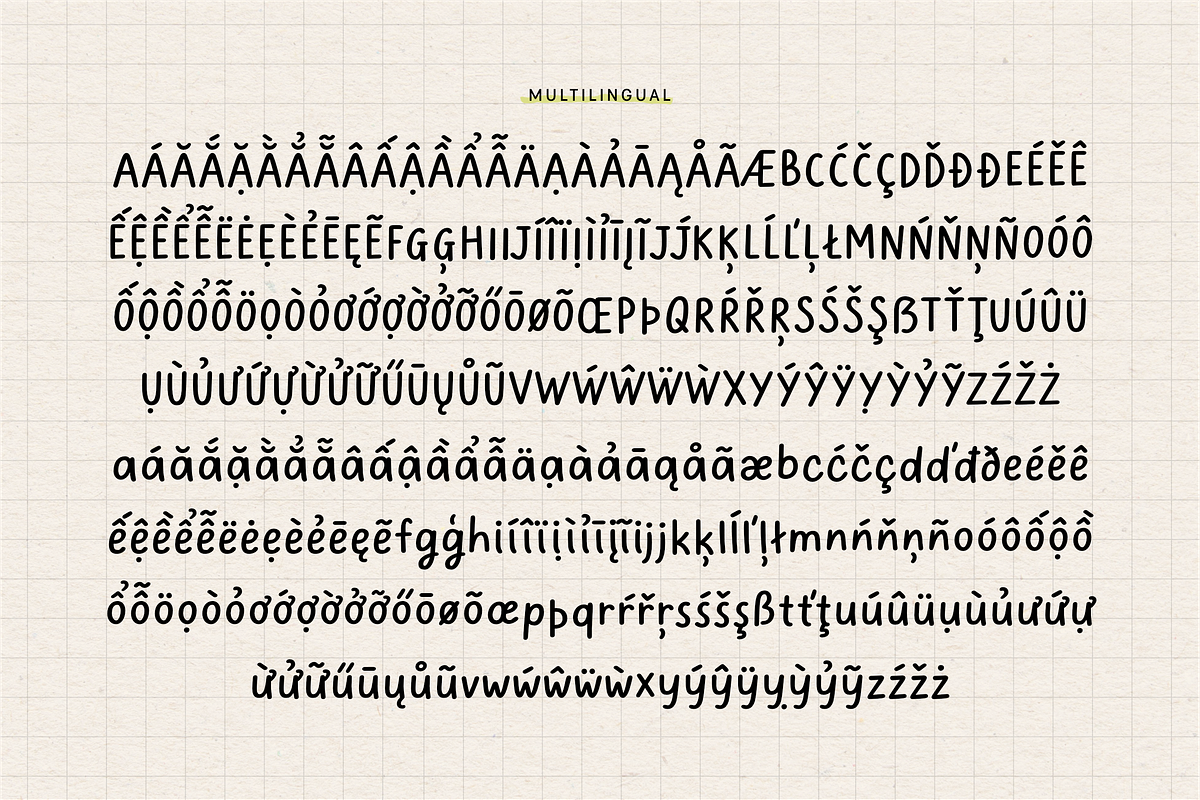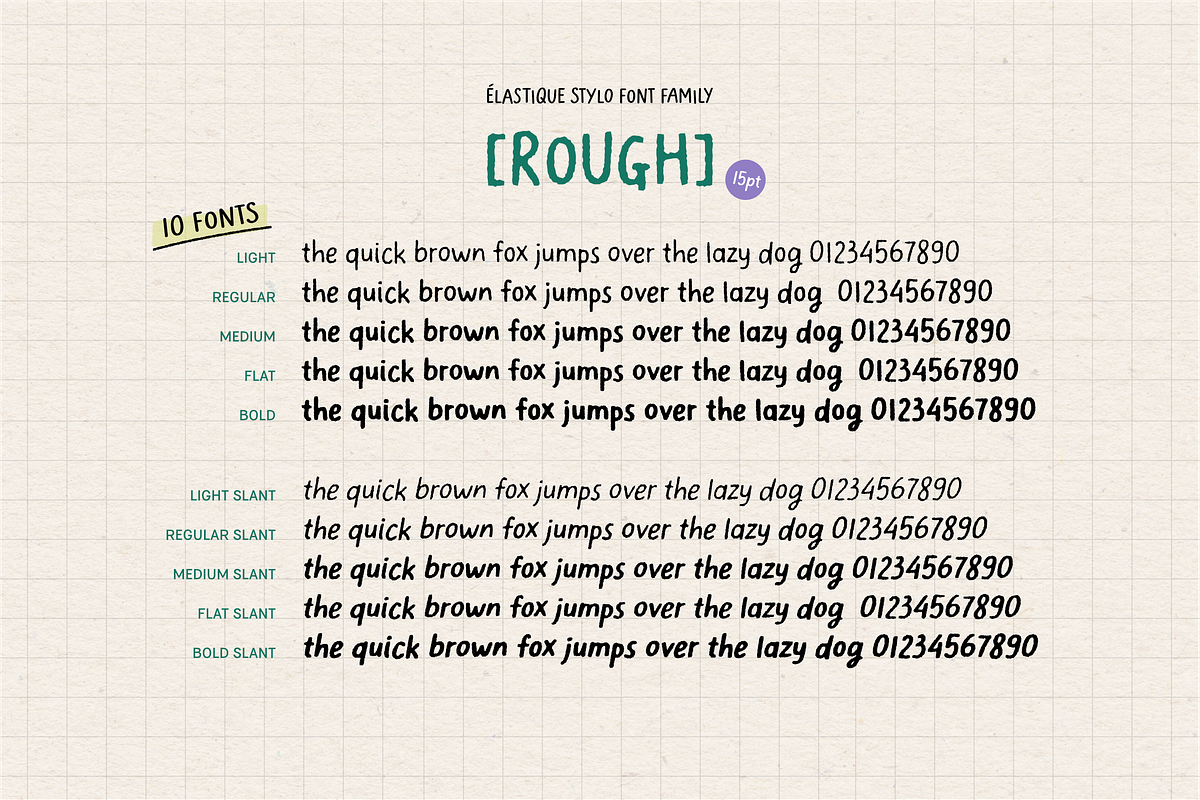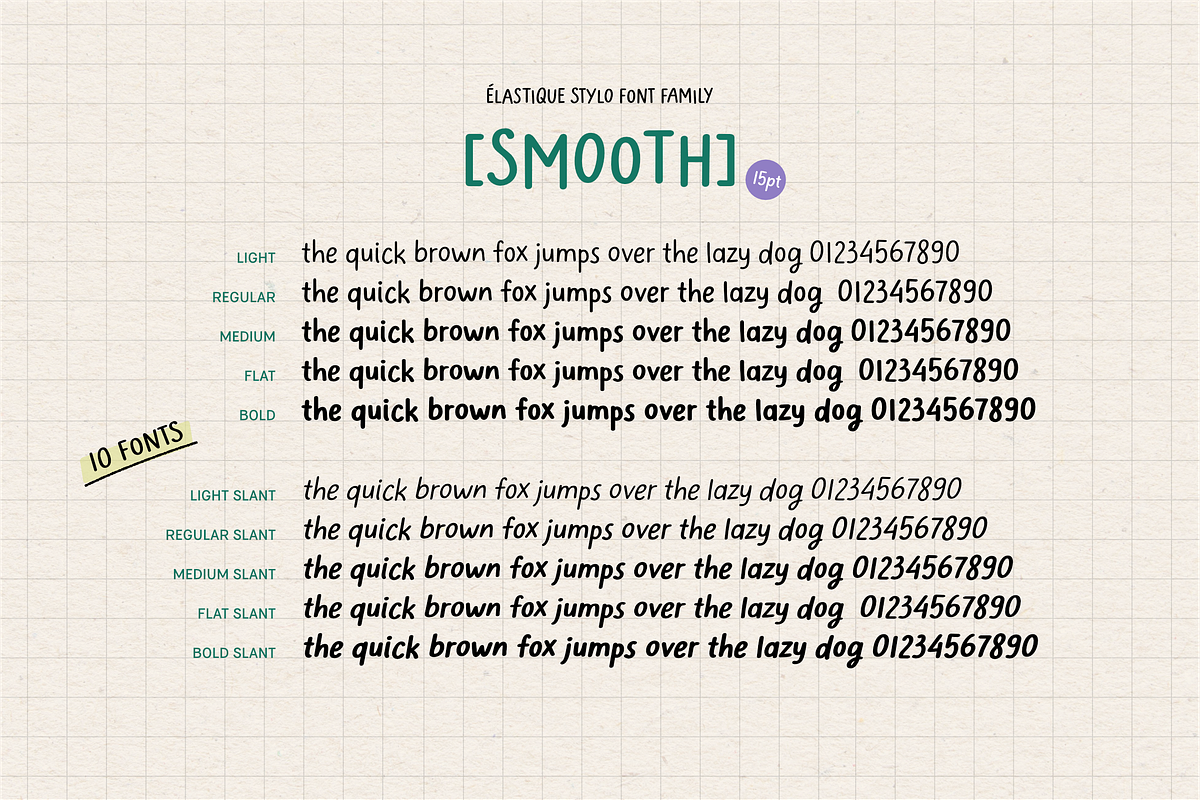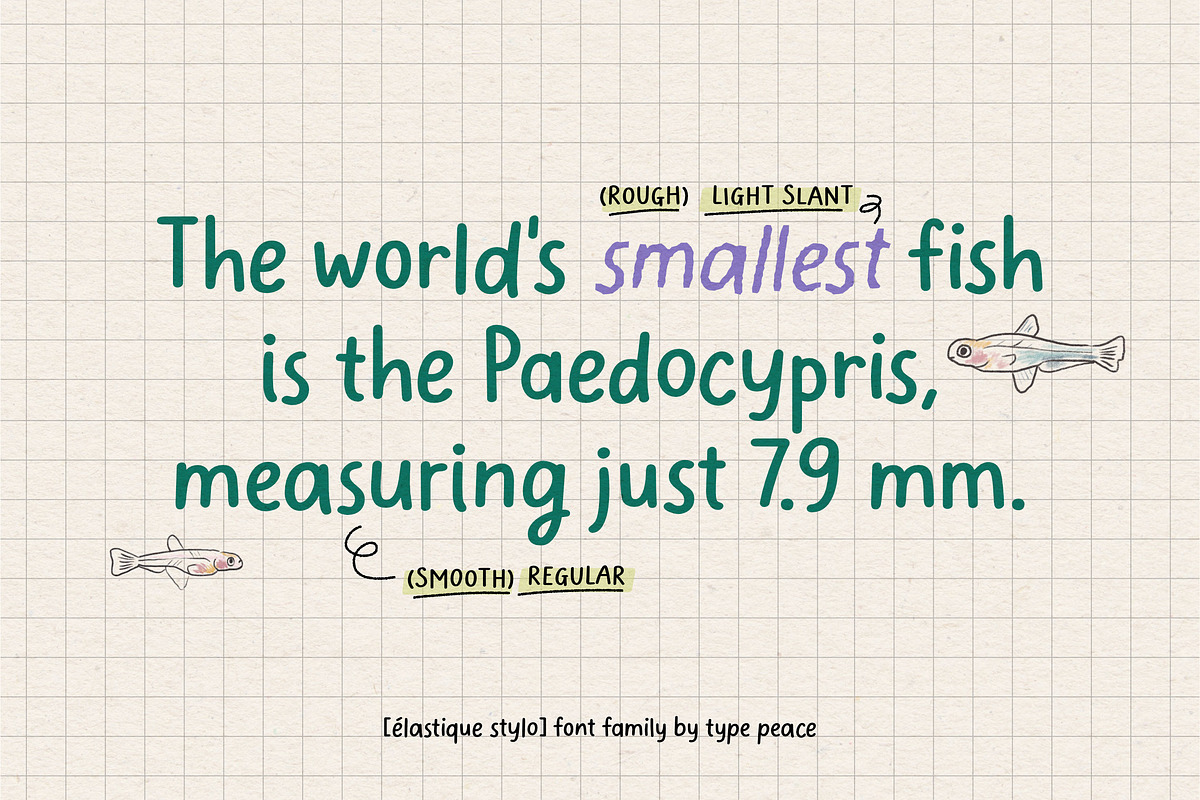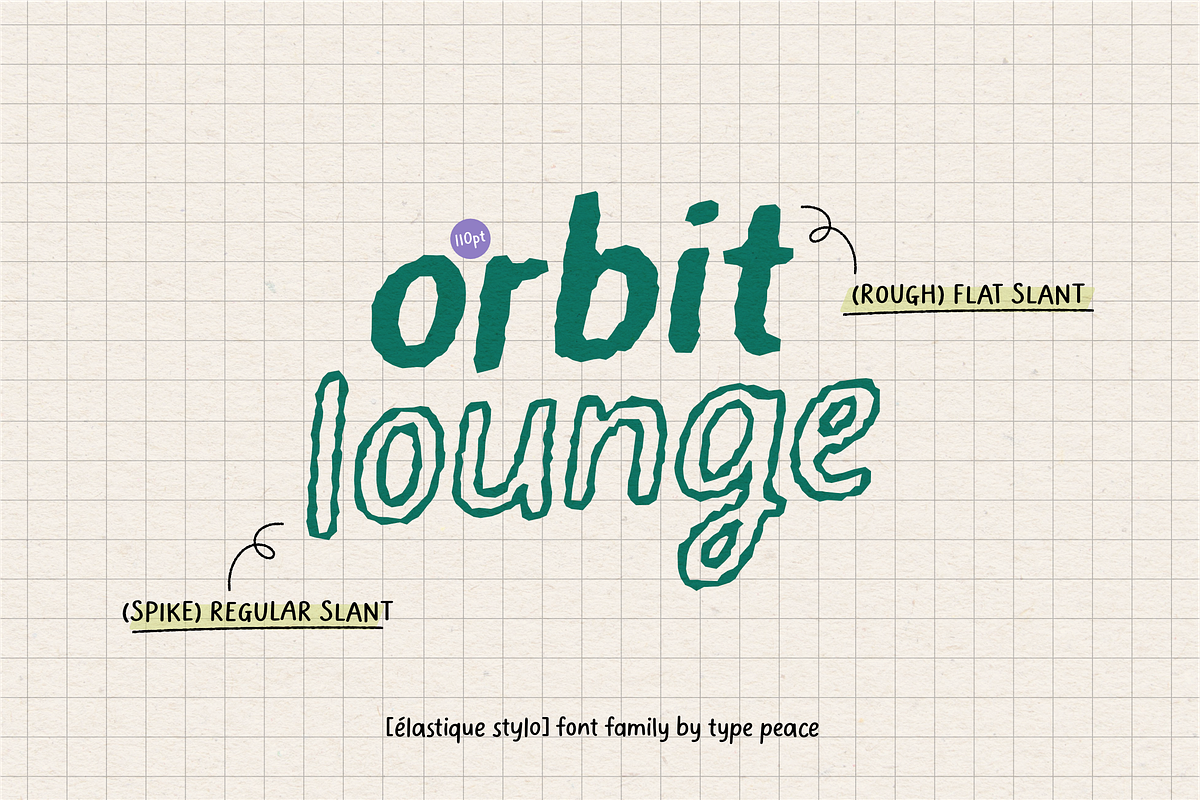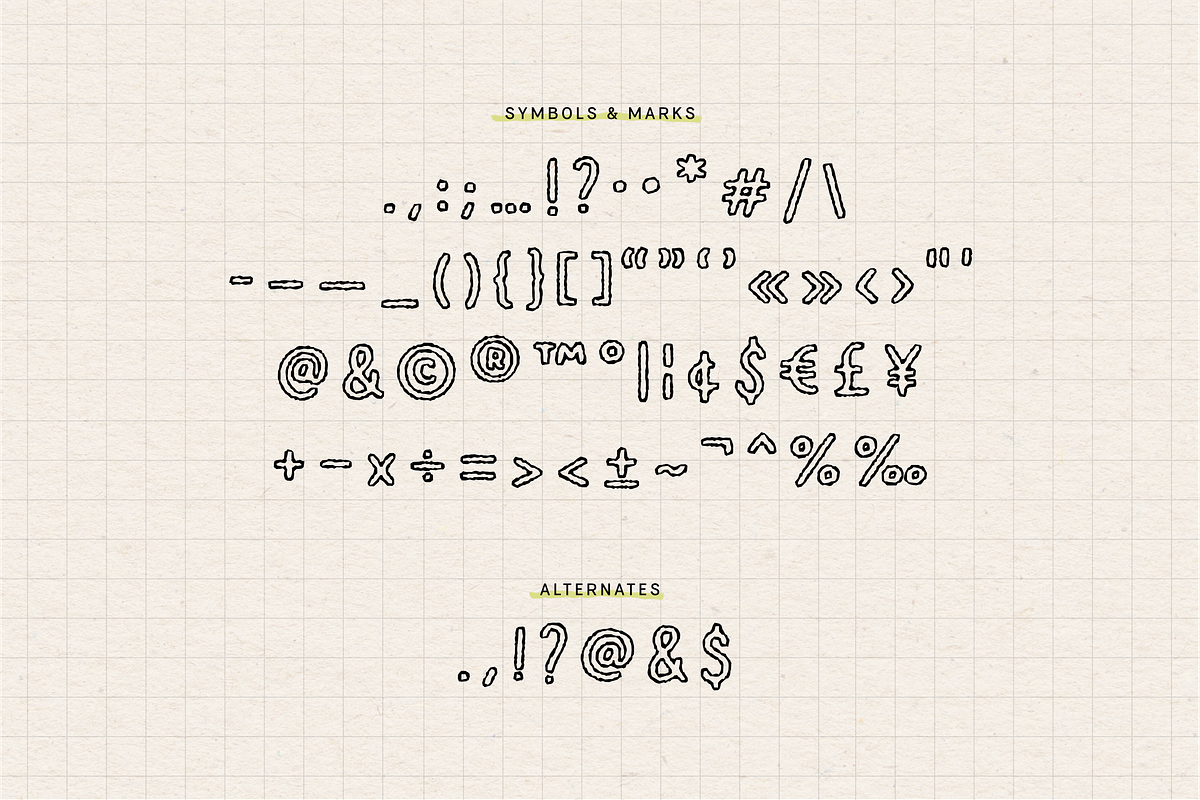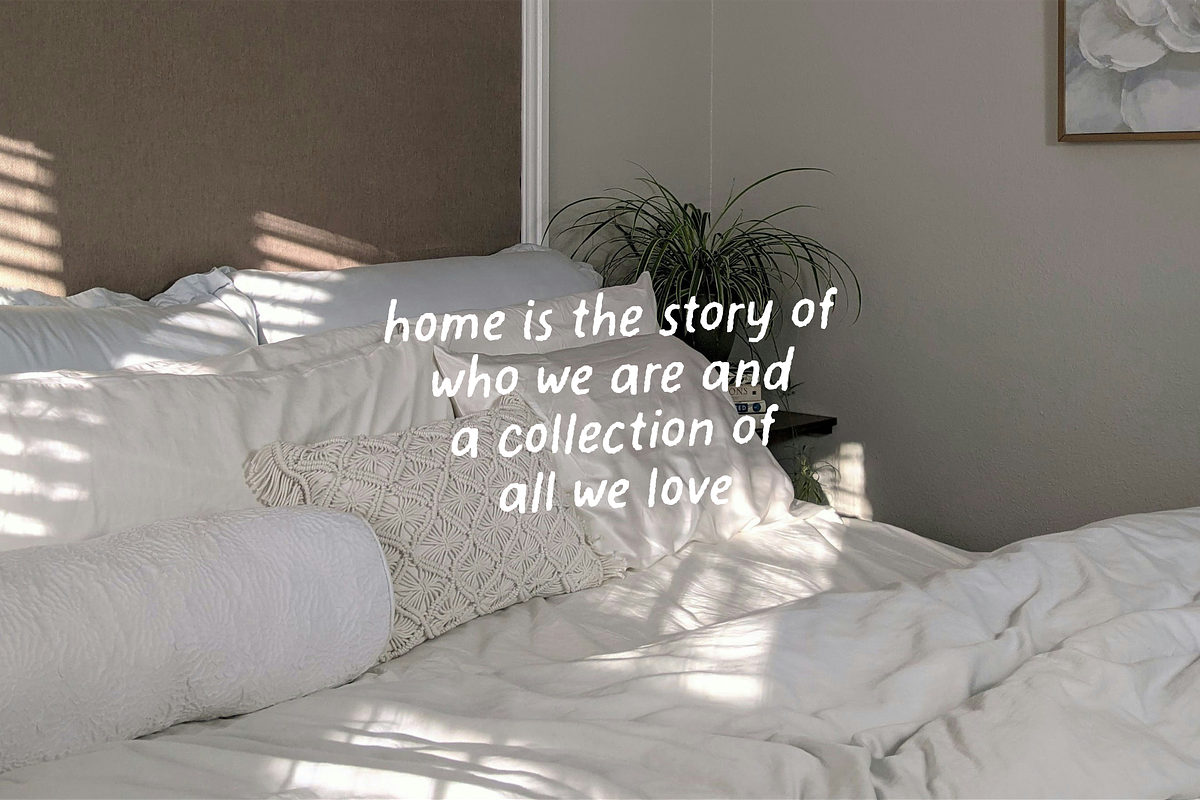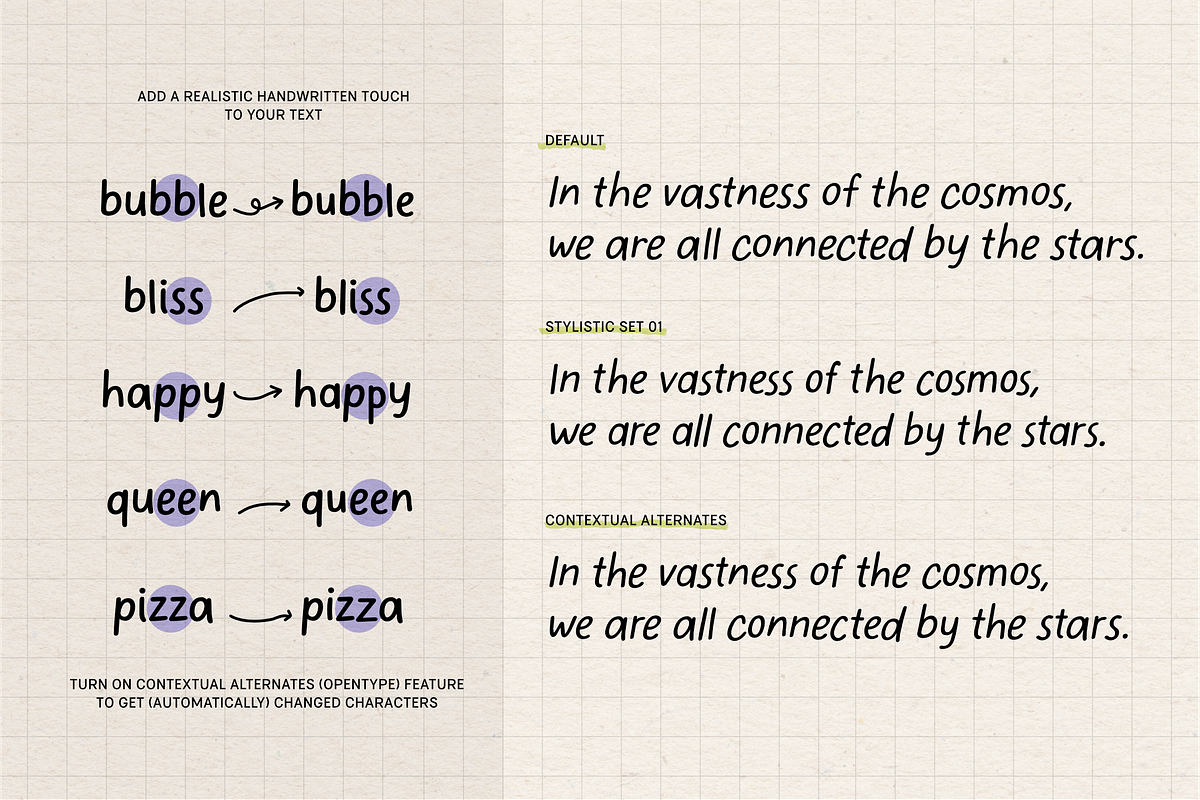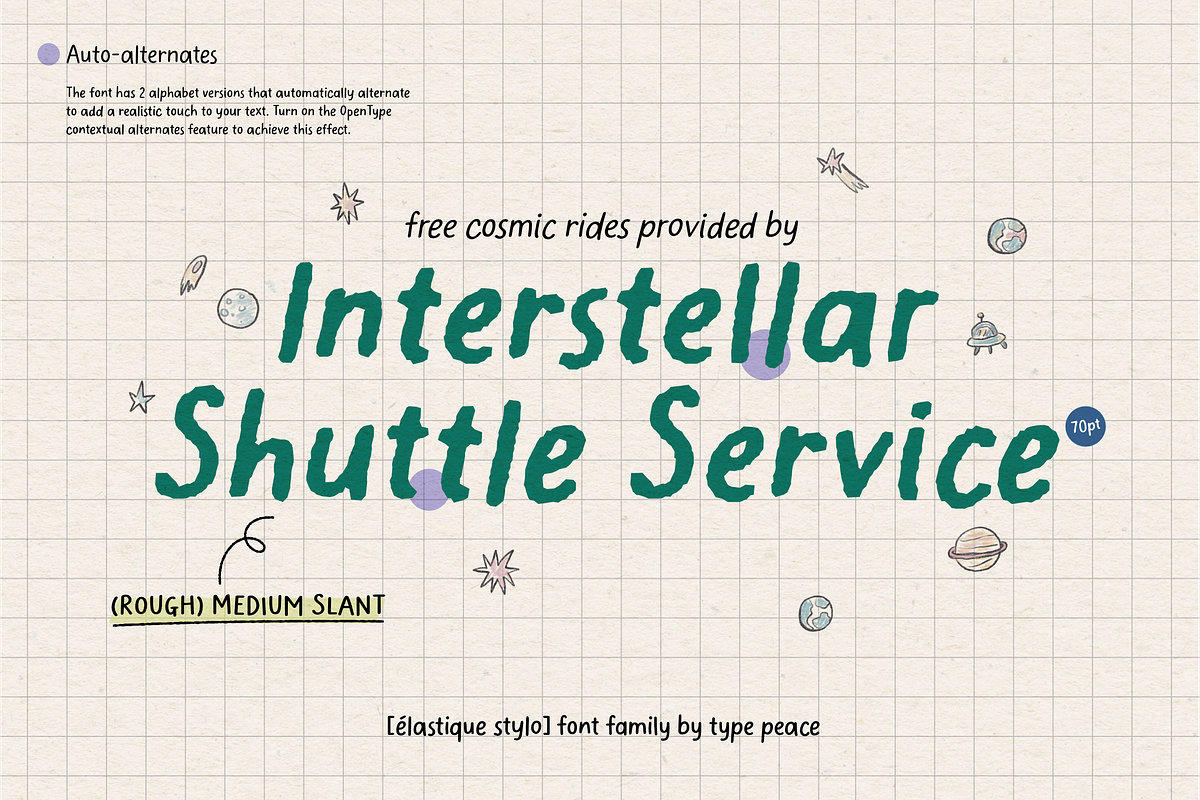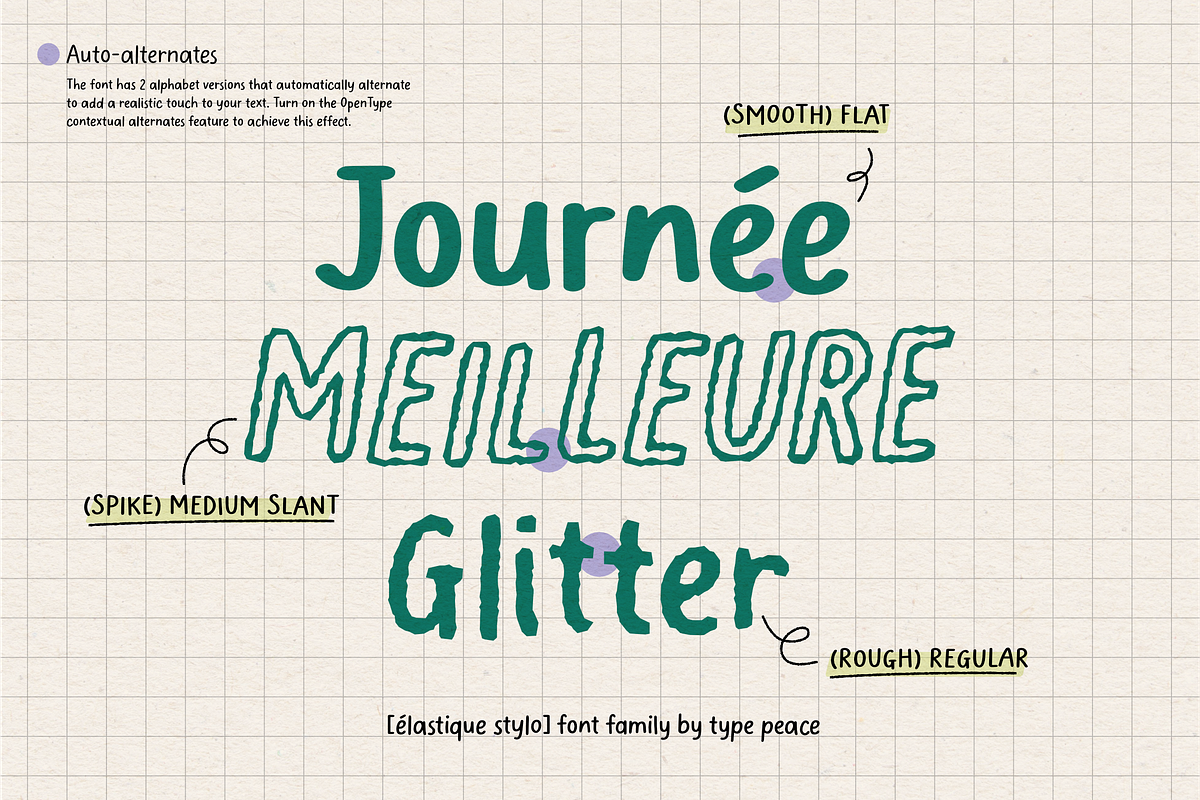
ELASTIQUE STYLO | Font Family
Elastique Stylo is a versatile 30-font handwritten typeface family designed to meet all your creative needs. Featuring three distinct styles—Smooth, Rough, and Spike—this comprehensive collection offers endless possibilities for crafting unique designs. Each style is packed with uppercase and lowercase alphabets, numbers, punctuation, and symbols, plus multilingual support. Perfect for branding, packaging, invitations, social media, and beyond, the Elastique Stylo Full Family gives you all the tools to create cohesive and eye-catching projects.
Enable the OpenType Contextual Alternates feature to alternate between different letter versions, giving your text an authentic and realistic handwritten feel.
3 Styles (Also Available Separately):
5 Weights - Upright & Slanted Fonts for Each Style
- Light & Light Slant
- Regular & Regular Slant
- Medium & Medium Slant
- Flat & Flat Slant
- Bold & Bold Slant
Font features:
- 2 versions for each letter and number
- Punctuations and symbols with some alternates
- Opentype contextual alternates feature
Script: Latin
Supported Languages: English, Western European, Central European, Vietnamese